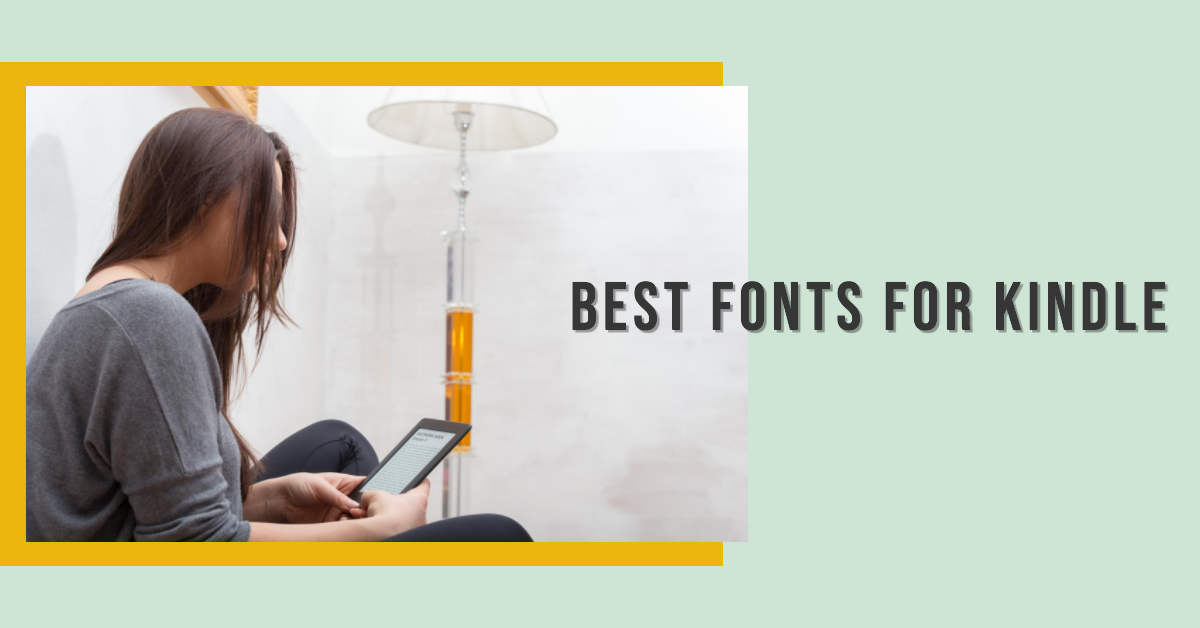
As a reader, there’s nothing more frustrating than struggling to make out the words on your Kindle screen. Whether you’re trying to get lost in a novel or learn something new, the right font can make all the difference.
But for people with dyslexia or visual sensitivities, the wrong font can be a major obstacle.
That’s why I was excited to discover the best fonts for Kindle, designed to be clear, readable, and easy on the eyes. With the right font, you can say goodbye to eye strain and hello to a more enjoyable reading experience.
In this guide, I’ll share my top picks for the best fonts for Kindle, so you can start reading with ease and comfort.
Whether you’re a bookworm, a student, or just someone who loves to read, these fonts are sure to enhance your reading experience. So, let’s dive in and explore the best fonts for Kindle
Best Fonts for Kindle Reading
1. Bookerly
Bookerly is regarded as one of the best-handcrafted reading typefaces. It was designed by Dalton Maag who was commissioned by Amazon.
Amazon introduced Bookerly as the default font for Kindle Paperwhite in 2015. It was a replacement for the previously used Caecilia font.
The font is considered a good pick for quick and easy reading on the aforementioned device thanks to its notable contrast on thin and thick strokes. It also features straight lines and regular curves which reduce eye strain and instead promote faster reading speeds.
It also includes ligatures that break the monotony of predictable writing and make for a more harmonious reading experience. Additionally, Bookerly is designed with kerning techniques to ensure every letter is spaced in a balanced manner for pleasant reading.
The font comes in different variants including Bold, Regular, Italic, and Bold-Italic. It can be an excellent choice to use when creating long-form content such as novels and religious books.
2. Bitter
Bitter is another excellent font for Kindle devices. It was designed by Sol Matas, a designer based out of Berlin in Germany.
The designer is a huge fan of pixels which is what inspired her to create a font that is compatible with most screens. Bitter is a contemporary slab serif typeface for text, created with an emphasis to make reading a fast and easy experience.
A look at the font reveals that it has a combination of large x-heights and the legibility of humanistic tradition. The font features minimal variation in stroke weight which is why it can be a good pick for people from all walks of life.
Another notable feature is that Bitter’s Regular style is thicker than the usual Regular styles you can find on other fonts.
Because of this thickness, it tends to have a more intense color design which makes visibility even more pronounced regardless of the screen you are reading on.
The letters have square terminals while curves are designed with utmost care to ensure near-perfect outcomes. This font is well-balanced and the letters are manually spaced to ensure minimal usage of kerning pairs.
If you are a writer or author, this may be the ideal font for creating long-form pieces such as novels, kids’ storybooks, and religious materials.
3. Georgia
Georgia is a serif typeface designed by a British designer named Mathew Carter in 1993 after being commissioned by Microsoft.
It is by far one of the most popular fonts for creating content on different platforms including websites, blog pages, and social media platforms.
Although the font was created to cater to the needs of people who use low-resolution screens, it still manages to provide clarity regardless of the screen it is used for. The font was inspired by the 19th-century Scotch Roman which was also quite popular in its time.
It comes in four styles including Regular, Italic, Bold, and Bold-Italic. This makes it possible for designers to create different content using the same font but with slight variations.
Another impressive thing about this font is that it does not have any exaggerations with regard to the tails or noses of letters.
Everything is also spaced accordingly so that each letter stands independently and promotes a better reading experience.
4. Avenir Next
Avenir Next makes it to this list of the best fonts for Kindle thanks to its legibility on different platforms. It was designed by Adrian Frutiger and was released to the public in 1988.
The font has all the characters you may need to work on different graphic designing projects. Characters consist of punctuation marks, numbers, symbols, upper and lower case letters, icons, text ligatures, special characters, and stylistic alternates.
It comes in a variety of weights including Thin, Light, Regular, Medium, Ultra Light, Semi Bold, Bold, and Heavy. Regardless of the style you choose or the letter case you use, this font remains balanced with letters having a straightforward design.
With that in mind, you can use fonts such as Bookerly and Bitter to create content without compromising on legibility or on suitability to a specific audience.
Fonts such as Verdana and Georgia were specifically designed for use on Google and Microsoft respectively which is why they can be the best pick for projects on such platforms.